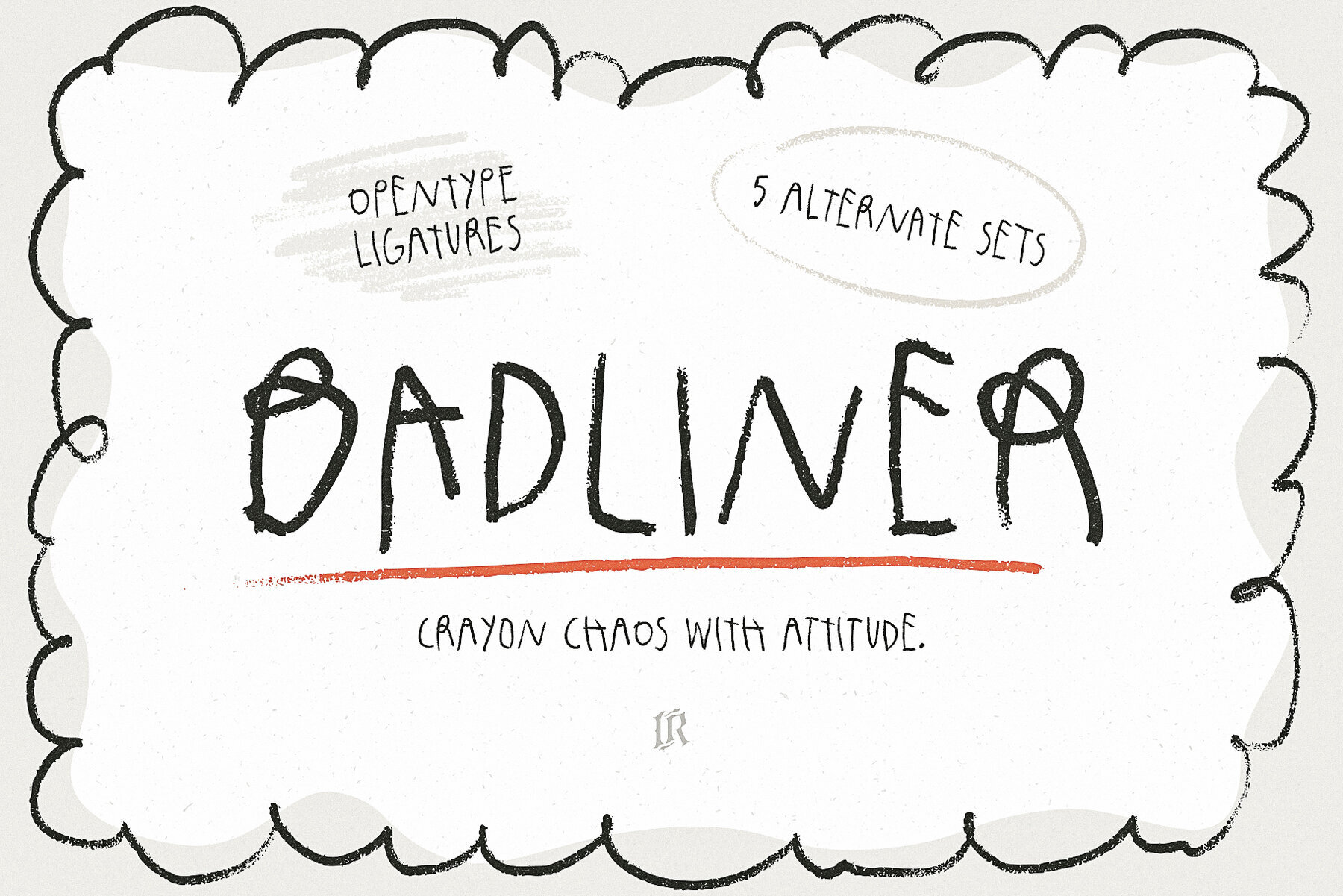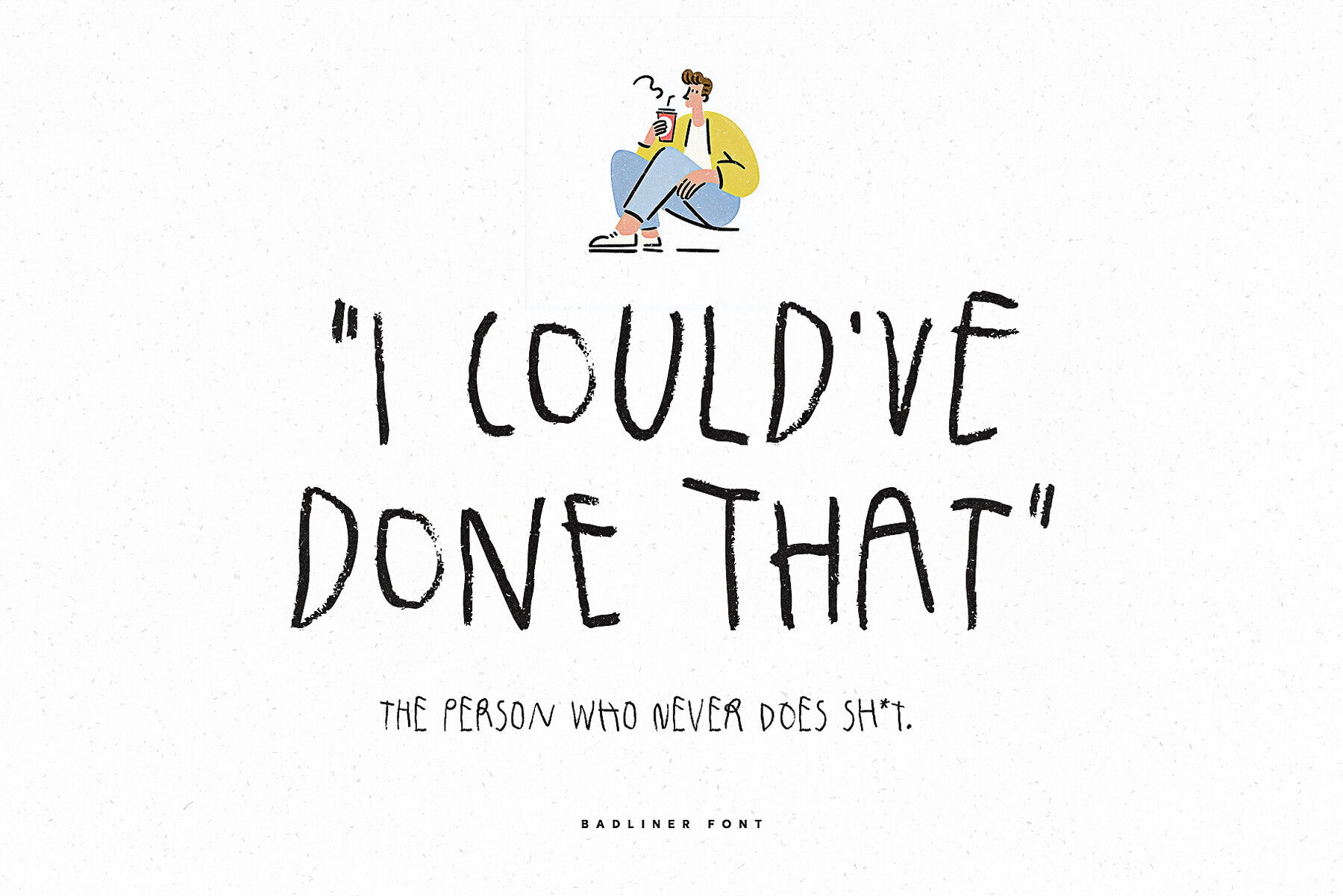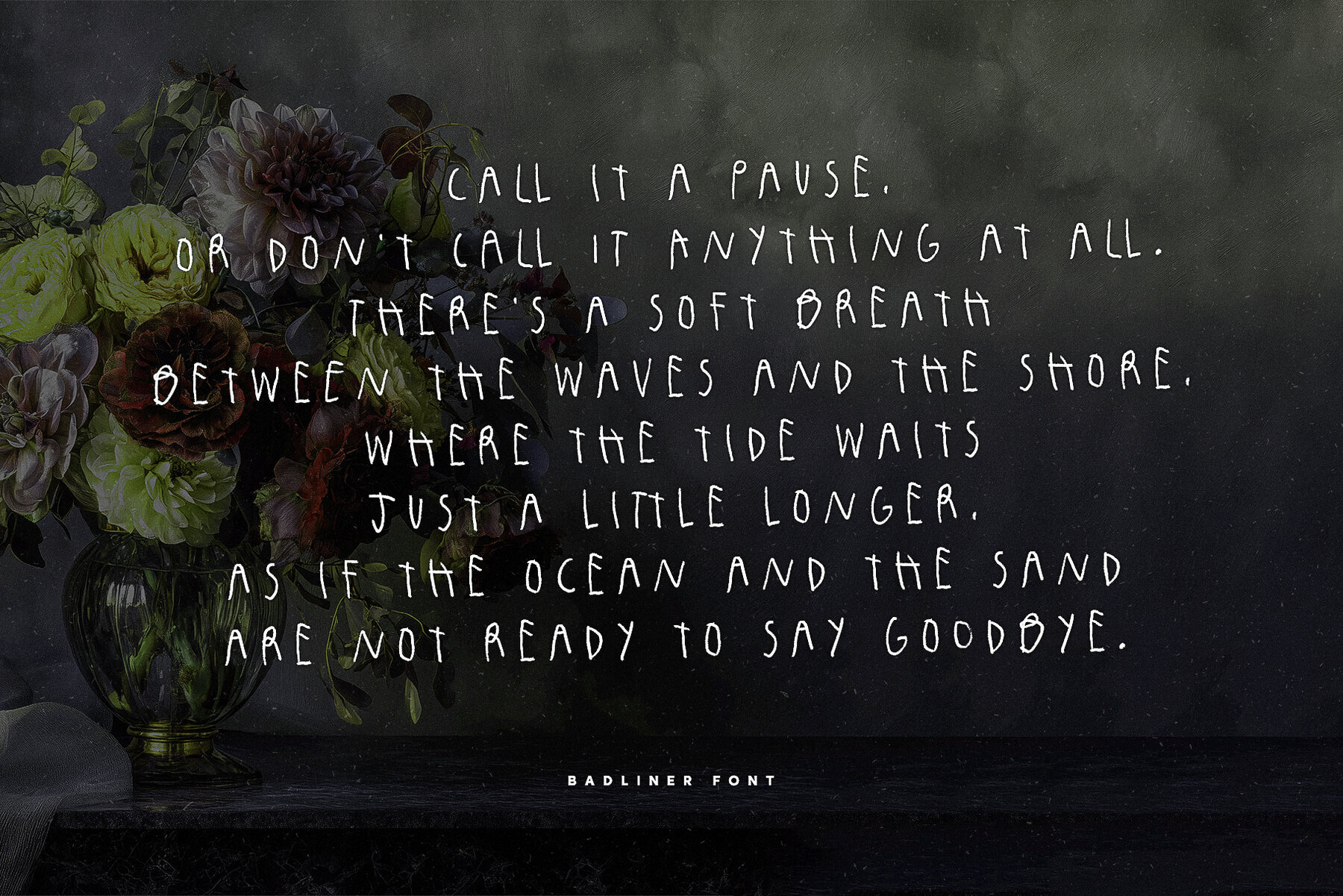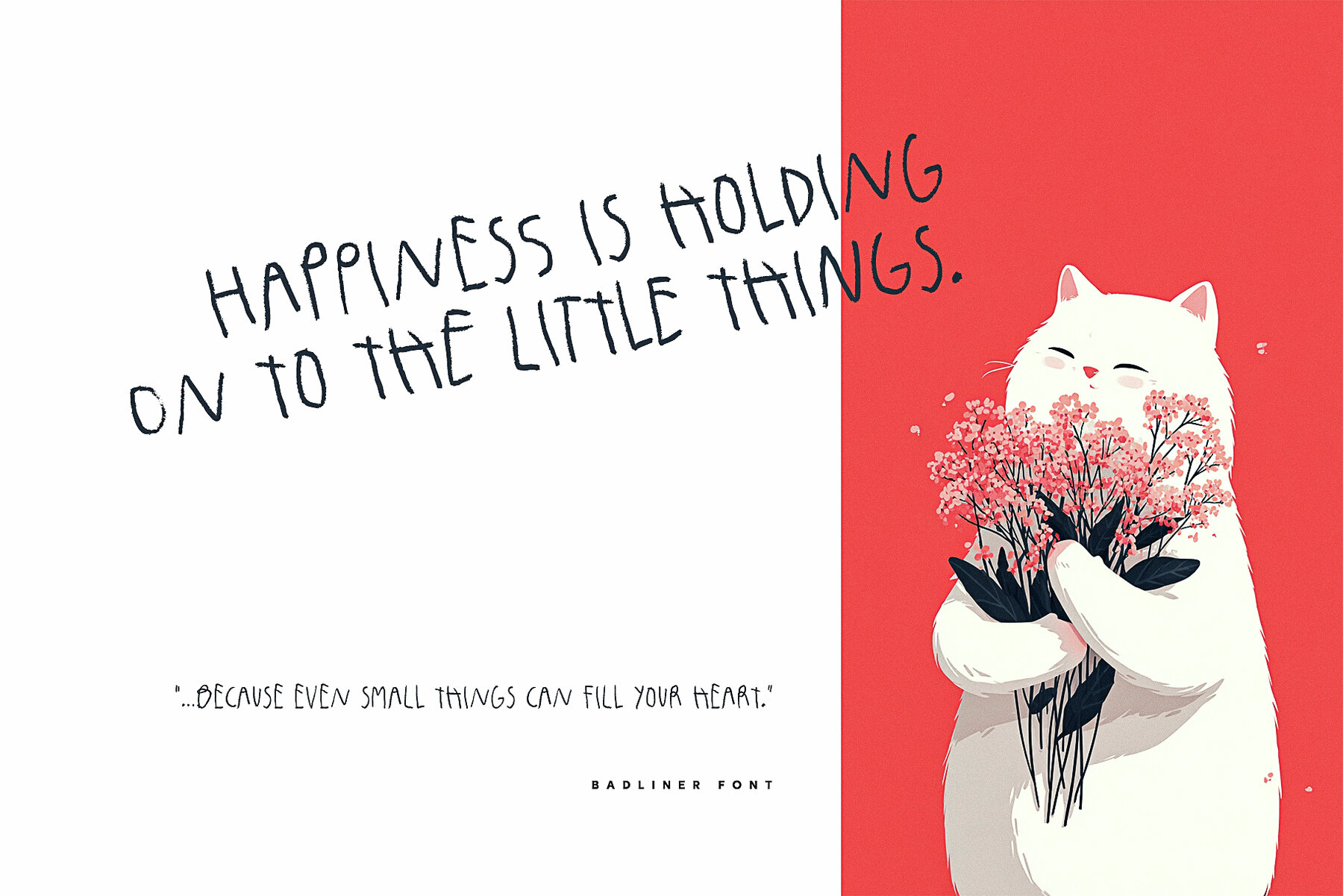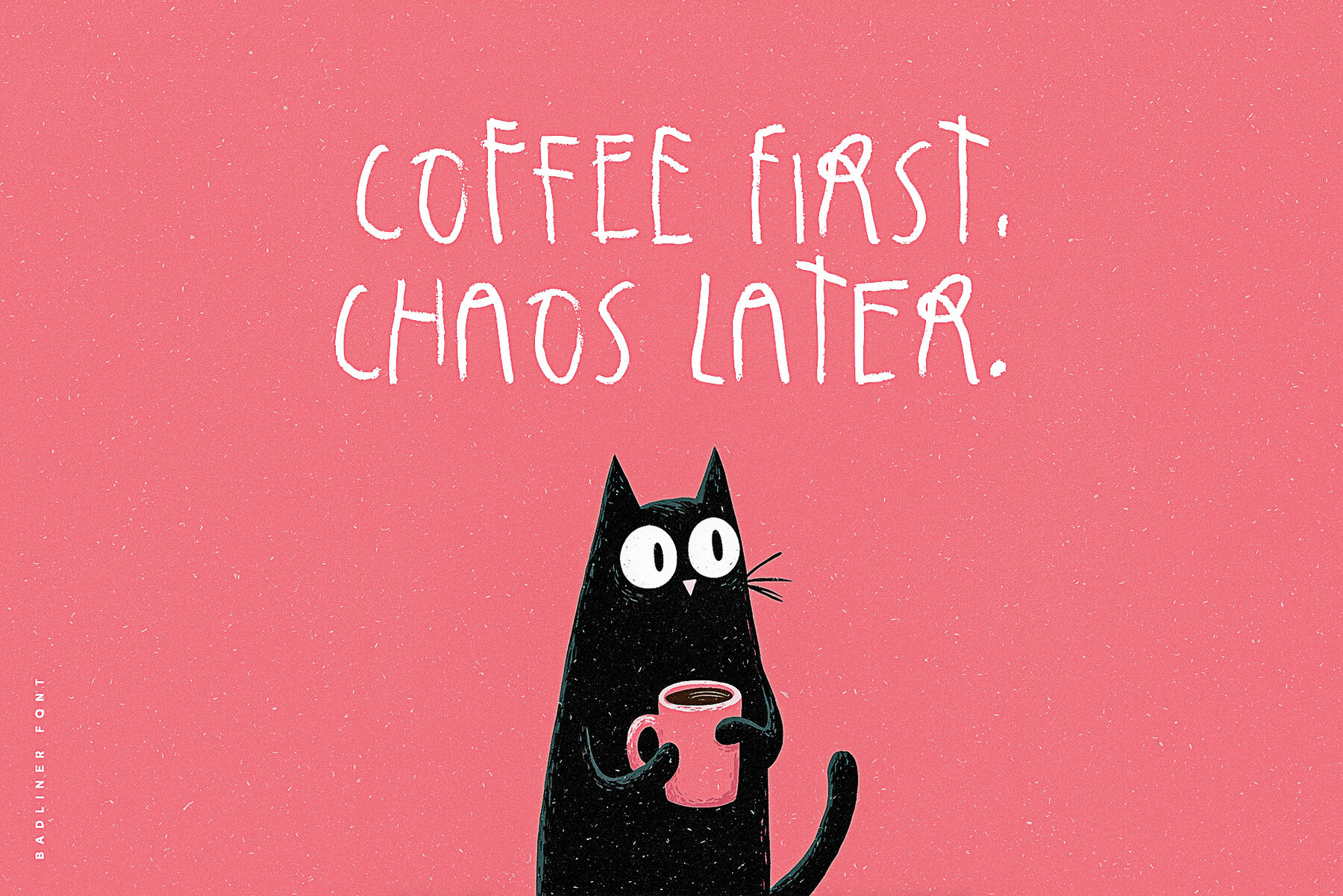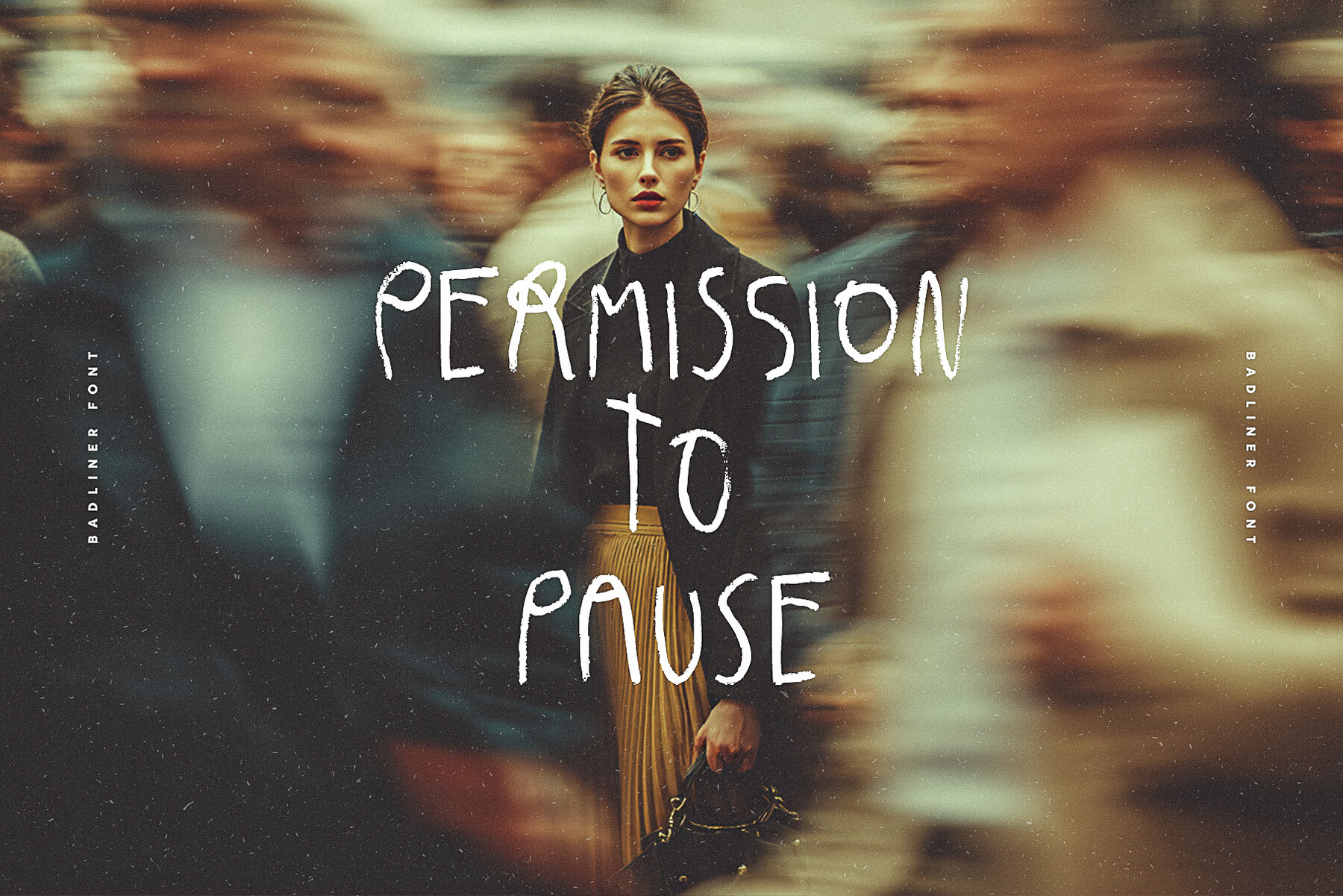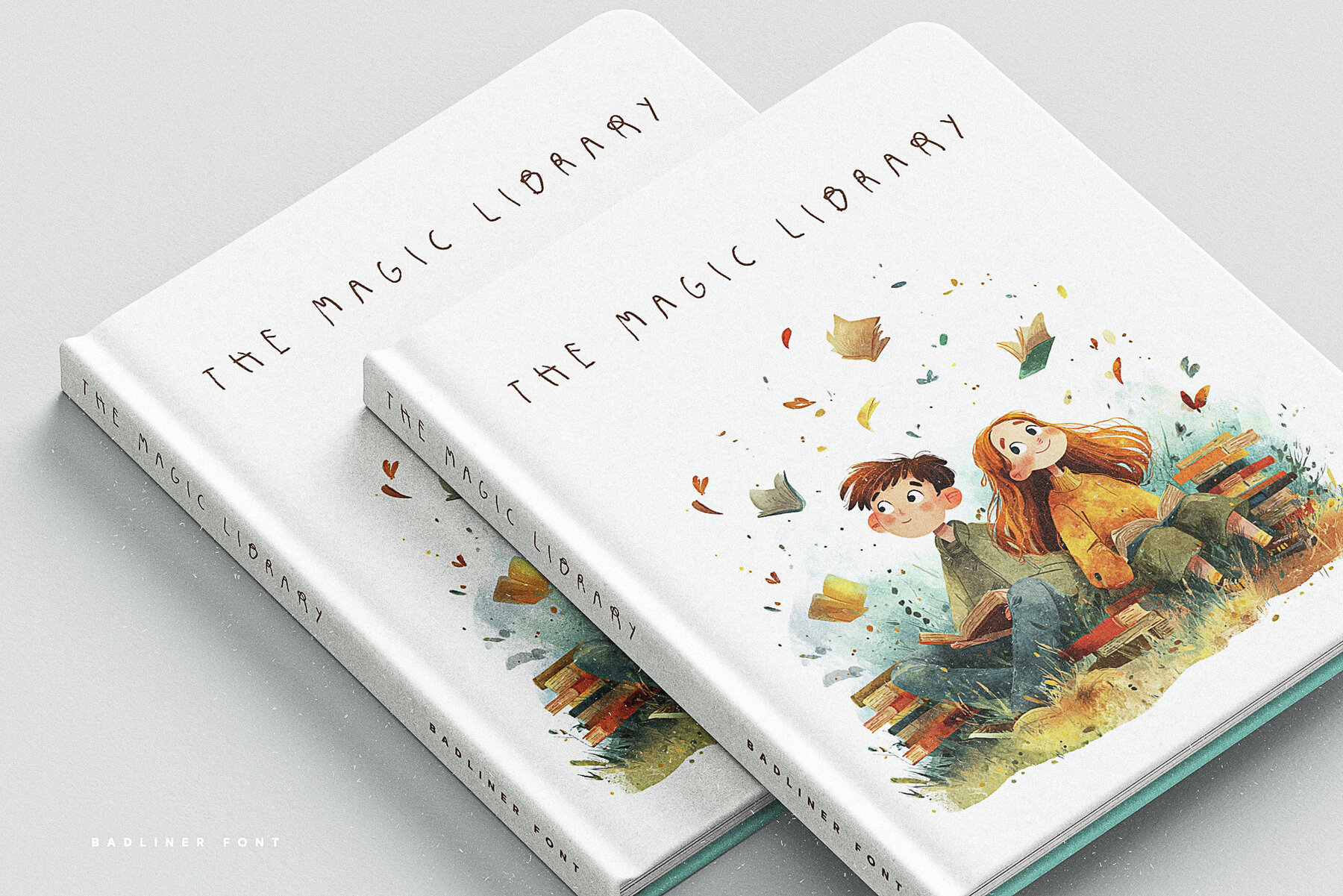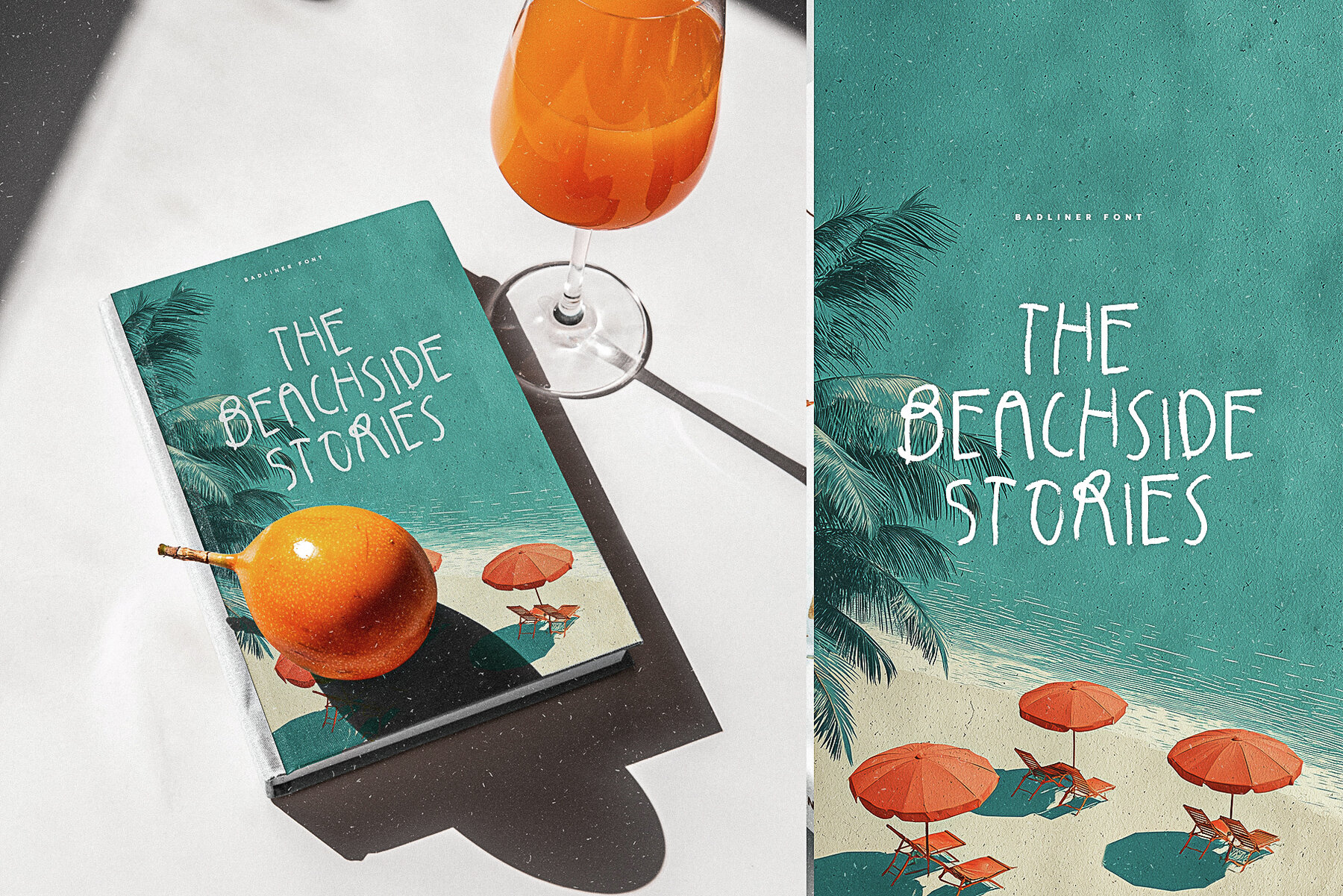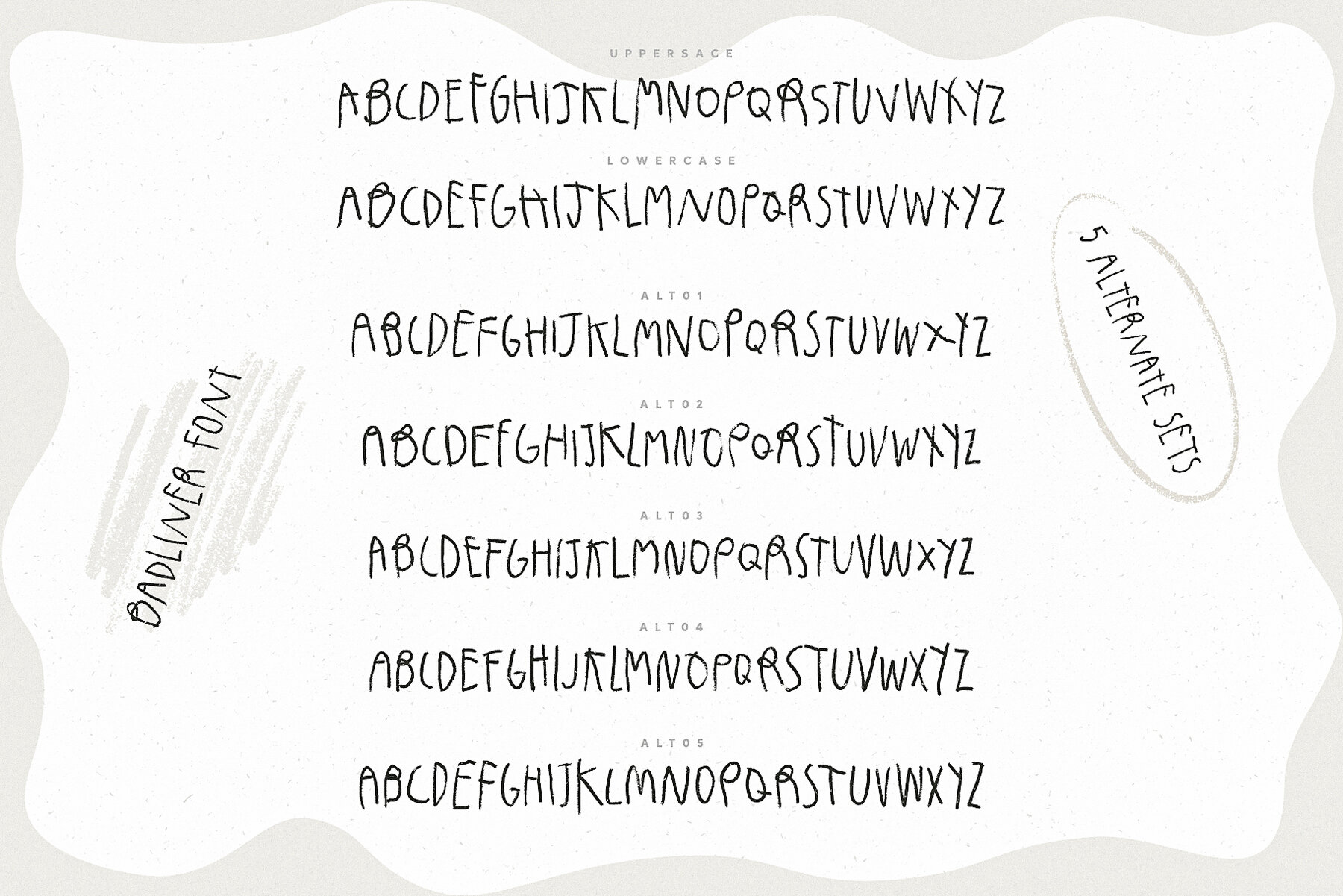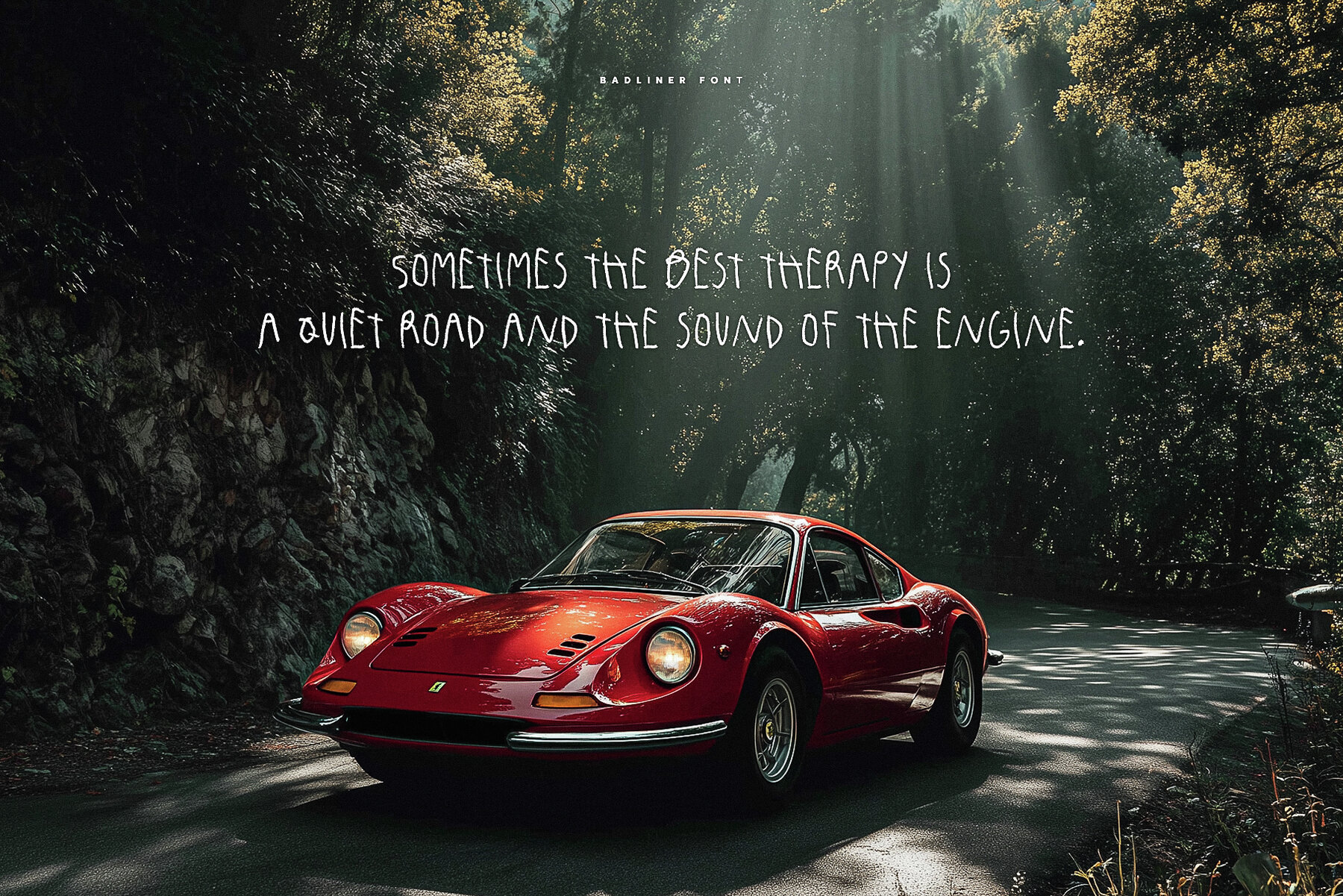
Badliner Font
Infuse your designs with a touch of playful chaos using Badliner, a hand-drawn crayon font that marries rough character with readability. Its slightly messy yet clear style suits a range of applications, from quotes and headers to posters, packaging, social media graphics, and even extended text needing a dash of personality. Badliner offers an authentic hand-drawn feel, featuring six alternate sets for lowercase letters, allowing for endless variation. Each set is available as an individual font, making it easy to mix, match, or customize based on your project's needs. Bring a dose of crayon energy and attitude to your next creative project with Badliner.Badliner: Playful Crayon Font with Character